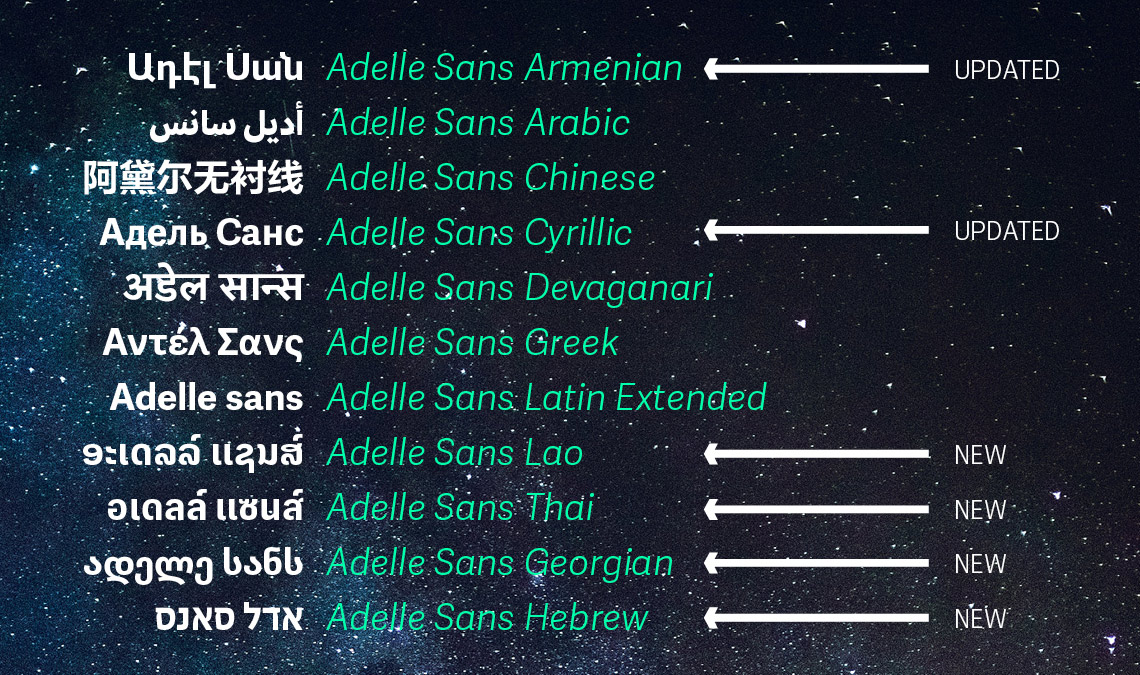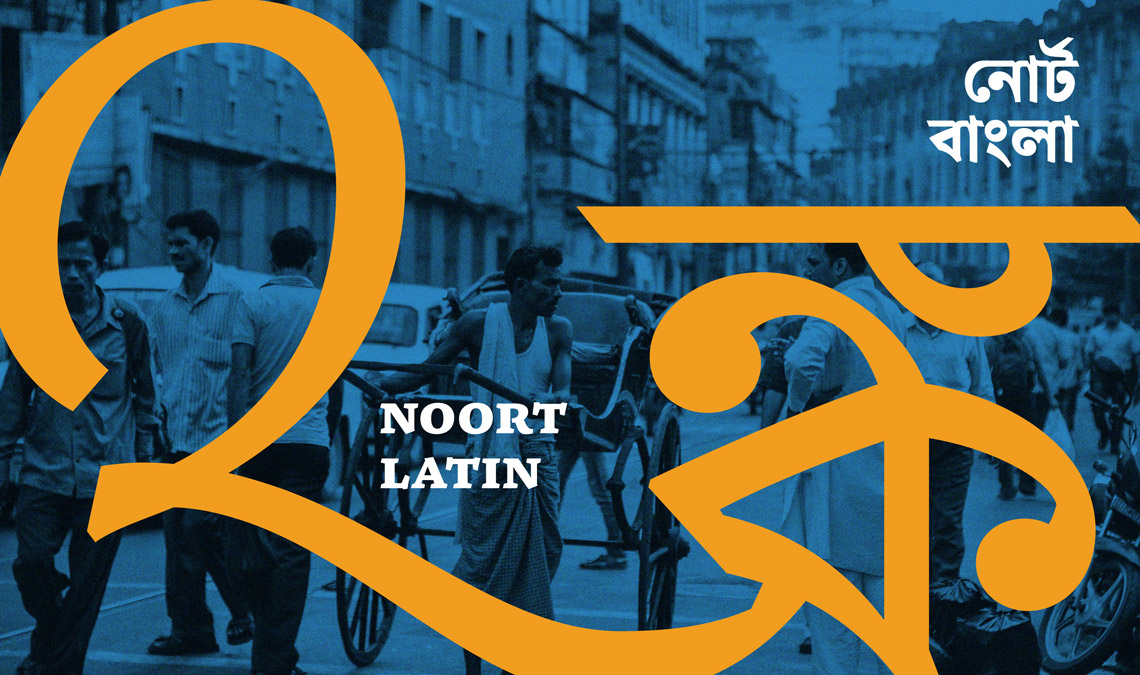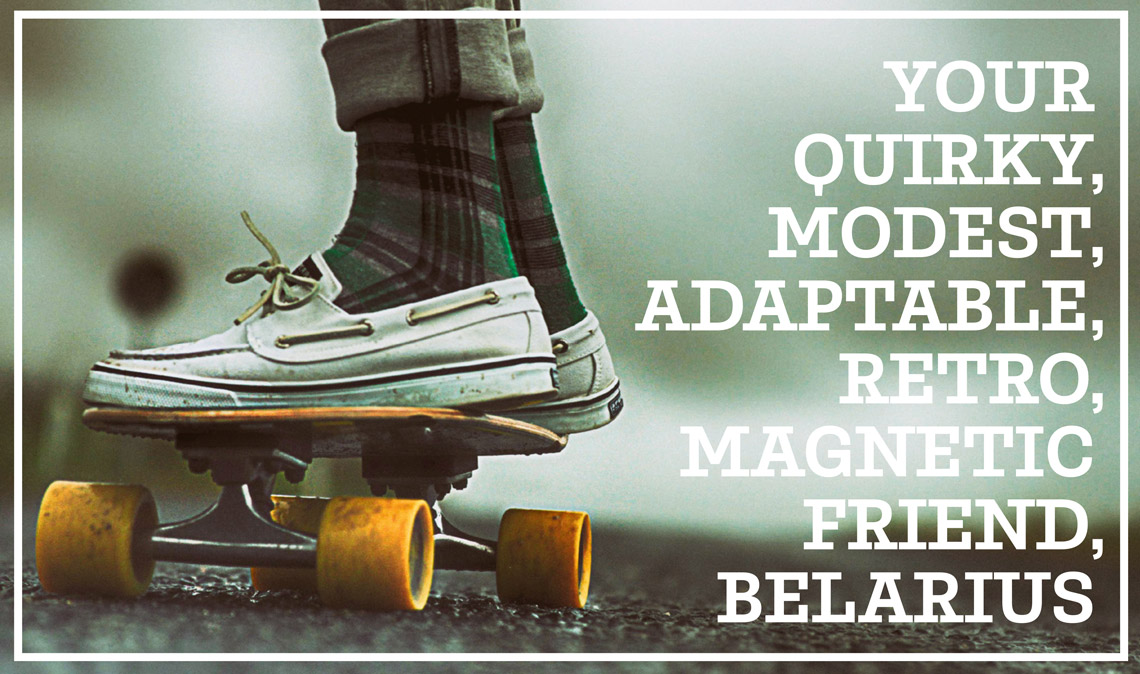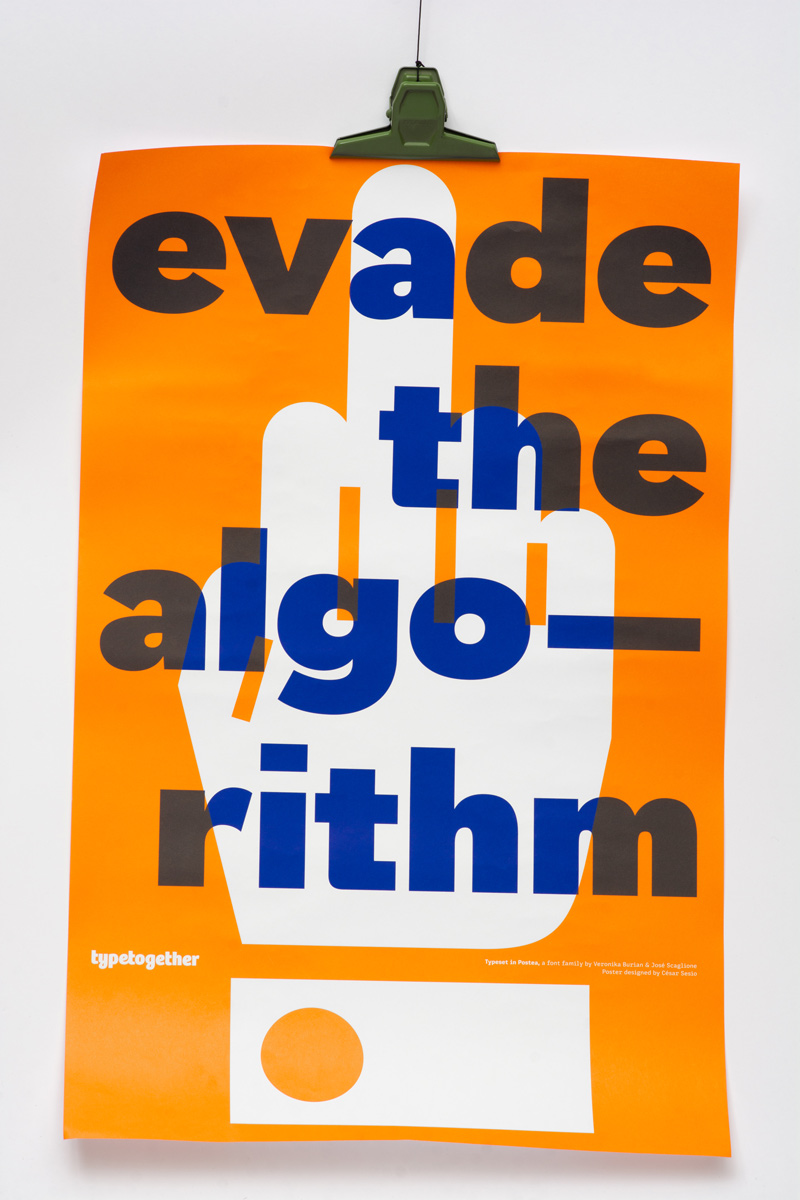
The TypeTogether story: chapter 2021
2021 was not as we had hoped, but we were able to meet more, have in-person workshops again, give some talks, and reach many goals. On the foundry side, we continued to make great strides in our multiscript releases (Adelle Sans, Bree, and Noort), and with Postea and Belarius, which have big personalities and distinct aims. As always we have embraced the latest technology, which means creating variable fonts whenever possible and much more.
New Typefaces in 2021
Last year we pushed global typography further than before: Adelle Sans was extended and offers support for eleven scripts, plus Pan-African (using the Latin script, but with glyphs supporting African languages). Bree is now a five-script family, becoming our second largest family by number of supported scripts, and in 2022/2023 we will see Bree Devanagari join the family. To improve access to these large families, we created landing pages (for Adelle Sans and Bree) that showcase all the scripts and their styles. Juan Bruce’s Noort also received a script extension with our first Bengali design ever. The two very different personalities of Belarius and Postea close the 2021 releases — Postea being a lyrical take on geometric sans serifs with a unique and easily activated icon set; and Belarius as the poignant, variable font shape-shifter that can switch from a sans serif to a slab serif and has infinite widths in between. Belarius, you’ll recall, is also the second in a three-part publishing family: Catalpa, Belarius, and Aneto. Will you see Aneto this year? Yes, yes you will. And your eyes will thank you.
Adelle Sans grew by four new scripts: Hebrew (designed by Liron Lavi Turkenich), Lao (designed by Suppakit Chalermlarp), Thai (by Smich Smanloh & Anuthin Wongsunkakon), Georgian (designed by Akaki Razmadze & Jan Charvát), and two updated scripts, Armenian (revamped by Gor Jihanian) and Cyrillic (by Vera Evstafieva). Designed through the joint effort of now three dozen experts, Adelle Sans supports eleven writing systems and over 400 languages. We wrote about it here.
Chilean designer Juan Bruce extended his typeface Noort, a TDC Award of Excellence and Gerard Unger Scholarship-winning design, to provide full support for Bengali. This also happens to be TypeTogether’s first foray into the script. Read more about how Noort Latin got a Bengali companion.
Postea is TypeTogether’s take on a geometric sans. It is a rather small type family, especially when compared with our latest releases. But smaller, in this case, does not mean either simpler or less accomplished. The challenge is represented in the typographic goal of the new typeface: Postea is meant to have outstanding performance in an extremely wide range of situations. And Postea’s icon set covers an incredible range of uses, including wayfinding, communications, and applications such as museums.
Belarius is a three-axis variable family that shifts from sans to slab serif, from condensed to expanded widths, and from light to bold weights, and every possibility in between. Its midrange purpose includes packaging, headlines and subheads, advertising, decks, and pull-quotes. While the Poster styles extend the normal slab serif length with deliberate exaggeration for a unique, crackly texture in headings.
Cruising with Geely automotive
In late 2018 our Chinese partners FounderType approached us with a very interesting project — redesigning a type family for Geely, one of the most important car manufacturers in the world. What started as rather technical work ultimately allowed us to expand our knowledge of branding for the automobile industry, hybrid analogue, digital user interfaces, and legibility.
The commissioned typeface is for use in printed and digital advertisements and in the user interface of the vehicles, including the dashboard, the infotainment system, and the physical switches themselves. It was important to find right inflection point between making the text typeface as squared off as the logo but also as curved as users need for immediate and clear character recognition. You can read about the design process here.
Premier has launched
We made a strong push for our TypeTogether Premier service for professional designers who are looking for the right fonts for their pitches and projects. Premier is our way of making it easier for creatives to access and test out any fonts in our library with a one-click trial licence.
Through Premier, designers can be the first to test beta fonts and use them in commercial work before anyone else. Alongside that, we’re creating content to help members keep up to date with typographic developments at TypeTogether and in the industry at large. The service is free for professional designers who are looking to trial fonts for their projects. If you feel this service would be a benefit to you or your team, then read more and apply here.
We continued to publish educational articles, interviews, and other interesting pieces on our blog. Here are some highlights from 2021.
Interviews & articles
Shani Avni, type designer and researcher with a focus on Hebrew type design, investigated and suggested a nomenclature for Hebrew type anatomy in the latest article in our series demystifying letterforms and shapes in scripts from around the world.
In an in-depth article about Arlette, one of the most unique and invigorating multiscript typefaces in our catalogue, designer Pilar Cano gave us a look at their inspiration and design process for the project, right from sketches to the finished typeface.
But more than anything, our focus is on partnering with you to make your business an even greater success. Every advancement we make, every opinionated font we create, and every educationally rich article we produce is all meant to make your sphere more influential, branded, positive, and fun. Whether you’re a freelancer just edging into the deep waters of typography or a company of global renown, we value partnerships and helping you move forward. We always have an open door so reach out at any time and let’s connect. It’s gonna be another great year with TypeTogether!